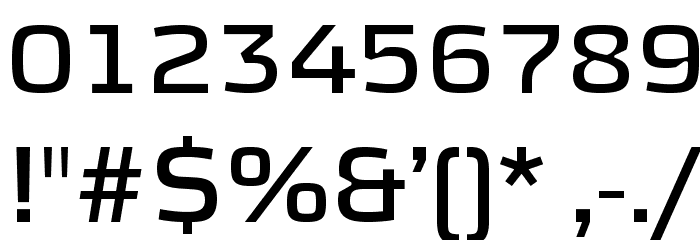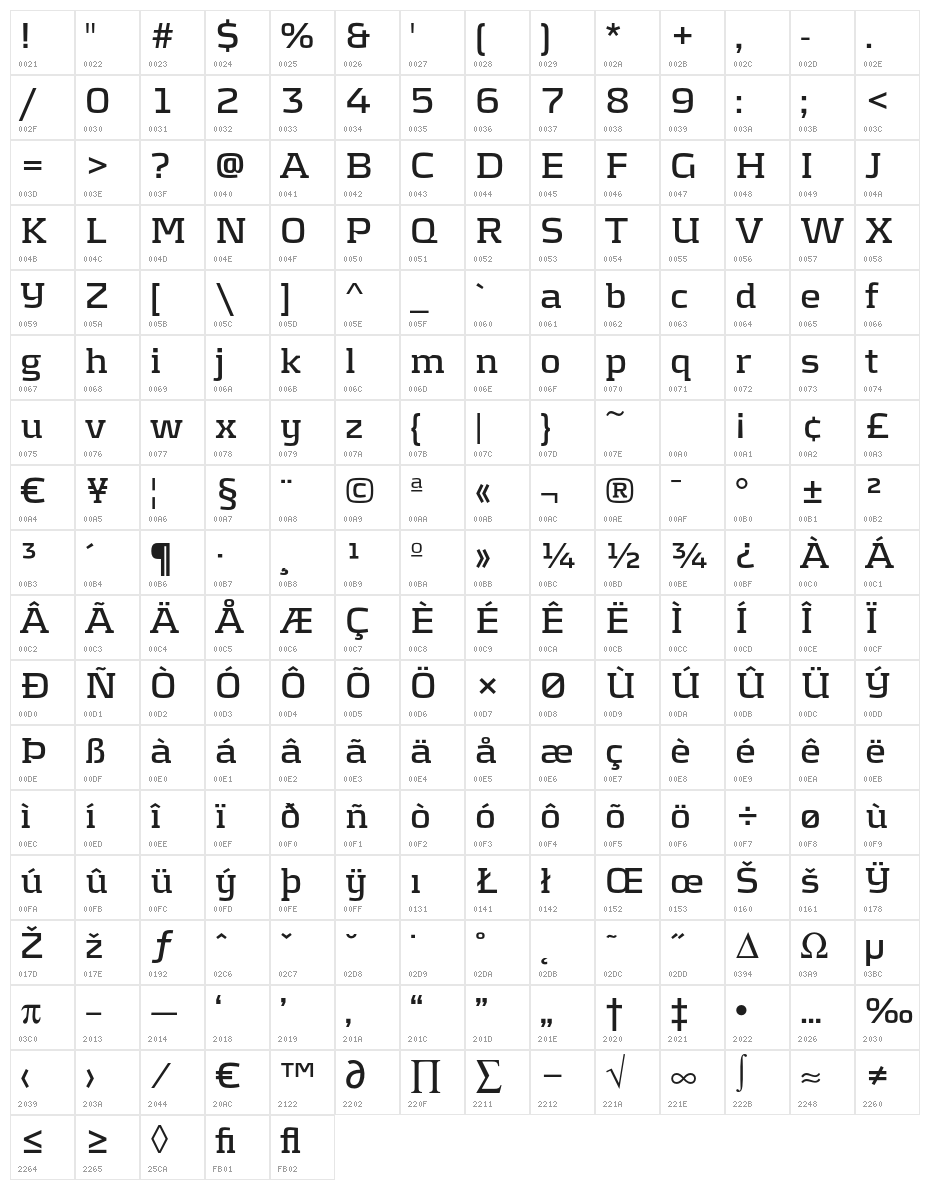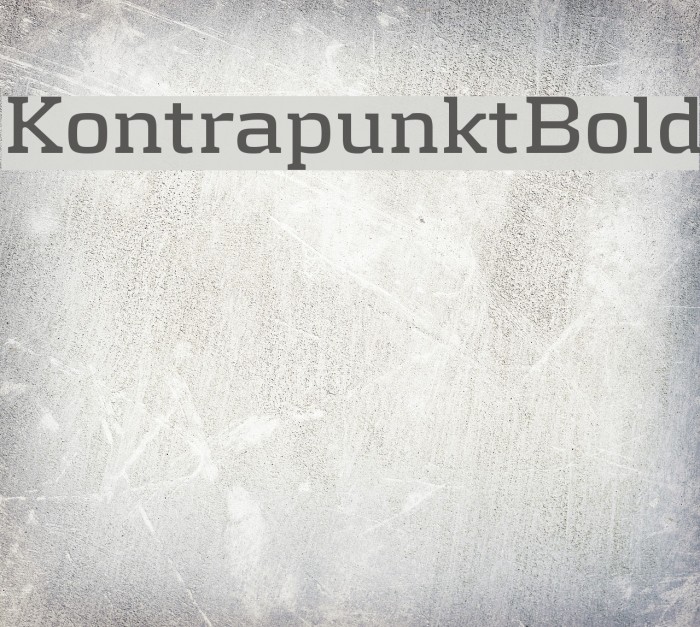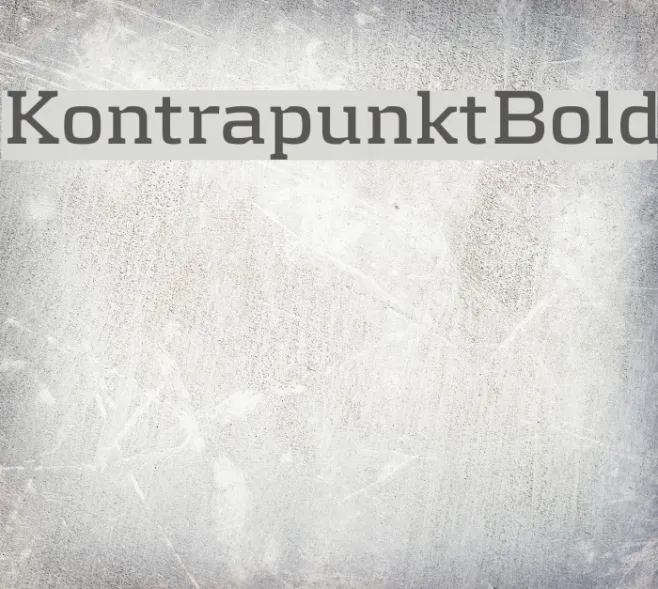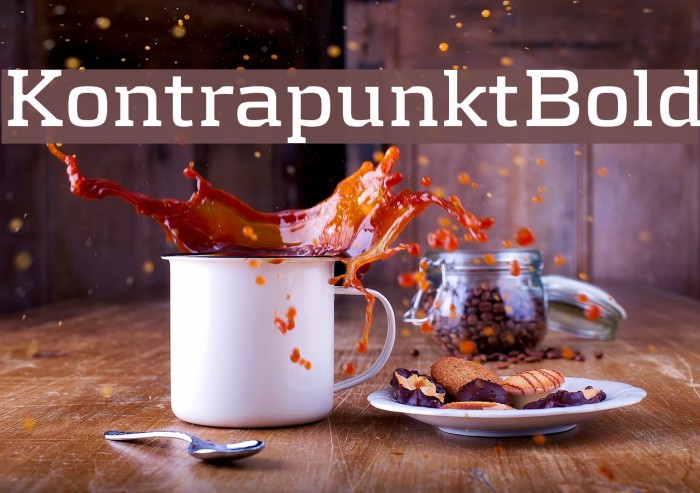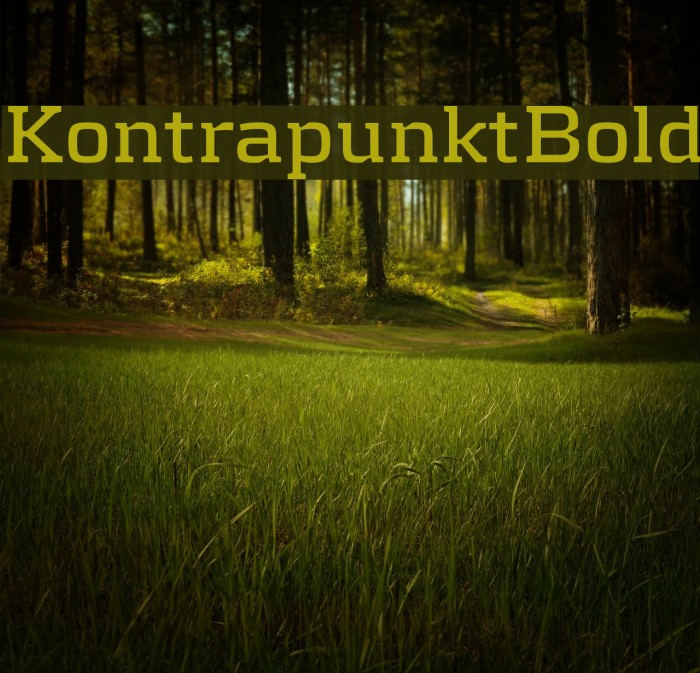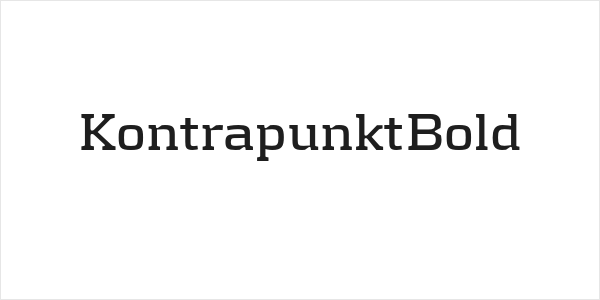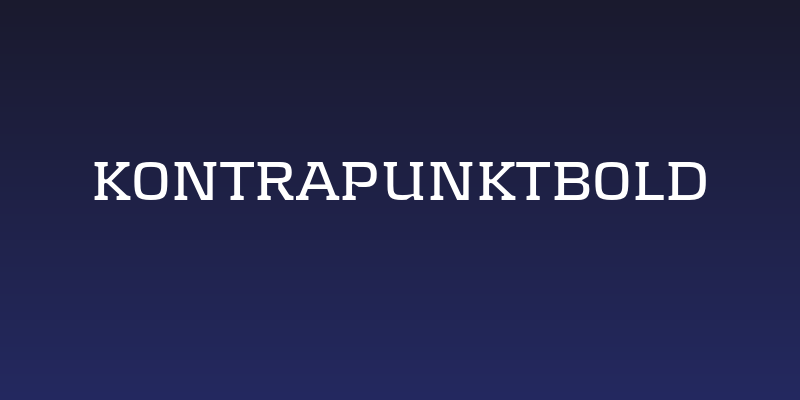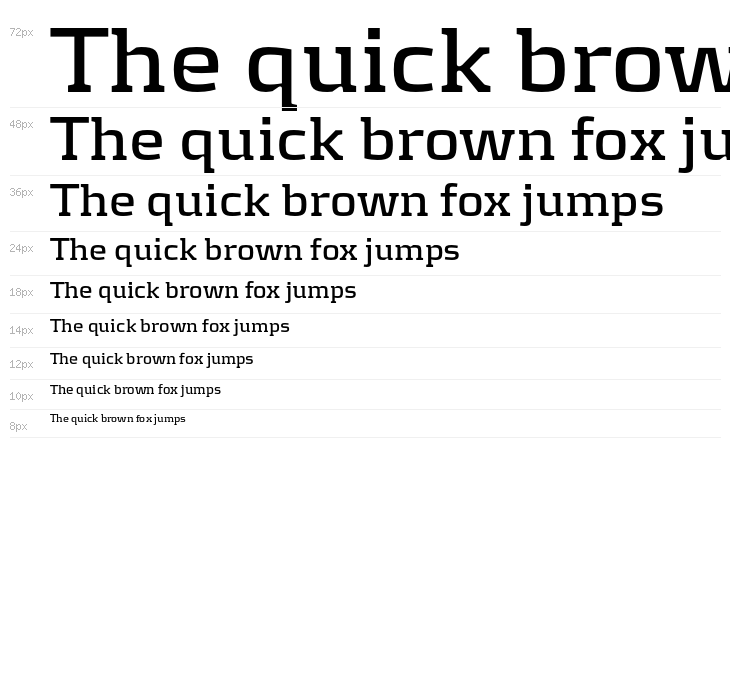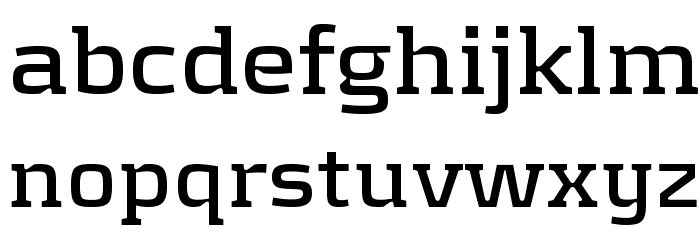
KontrapunktBold Font
KontrapunktBold Description
This font features a bold and modern design with clean, geometric lines and a strong presence. The uppercase letters are uniform in height, with a slight curvature that adds a touch of softness to the otherwise robust structure. The lowercase letters maintain a consistent x-height, contributing to the font's readability. The numerals are clear and distinct, matching the overall boldness of the typeface. Special characters are well-integrated, maintaining the font's cohesive look. The font's design is suitable for making a strong visual impact while remaining legible.